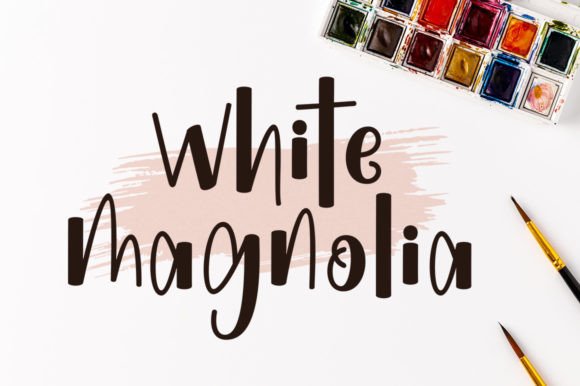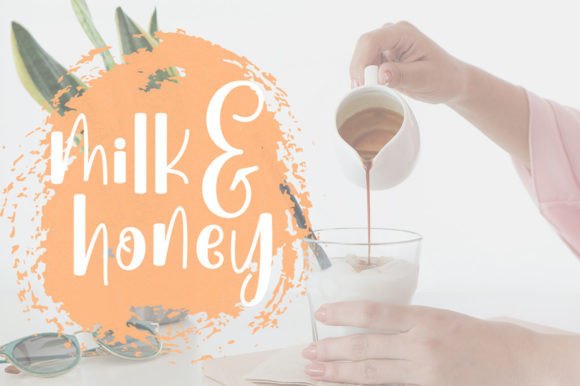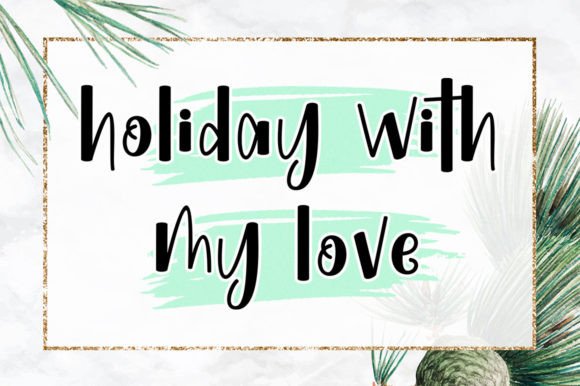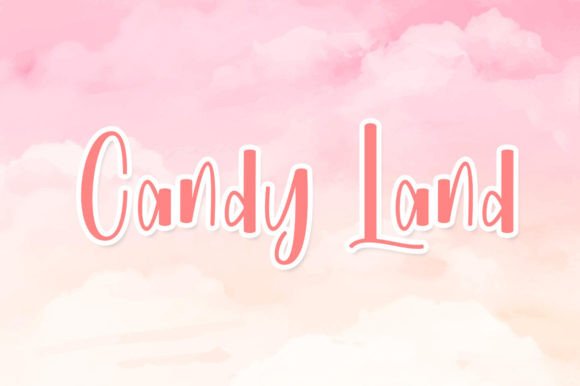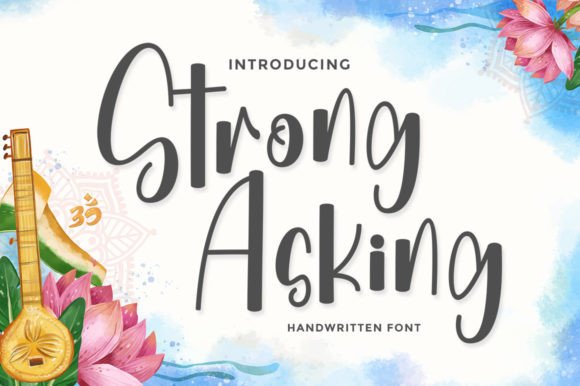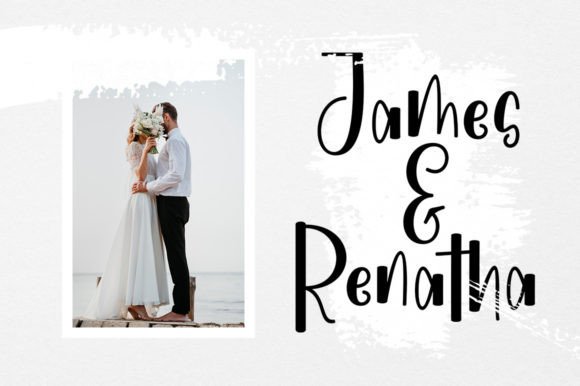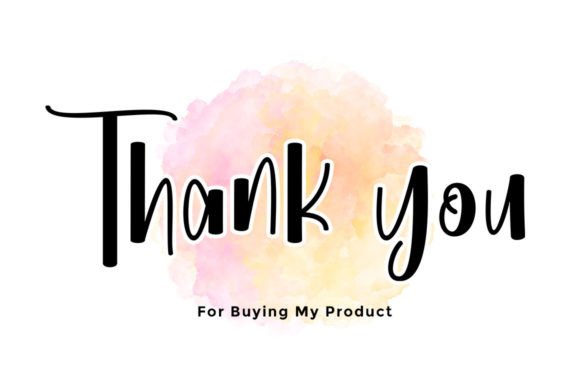
Strong Asking Font
About Strong Asking Font
Strong Asking is a Playful Handwritten Font
Strong Asking is perfect for product packaging, branding project, magazines, social media, weddings, or just used to express words above the background.